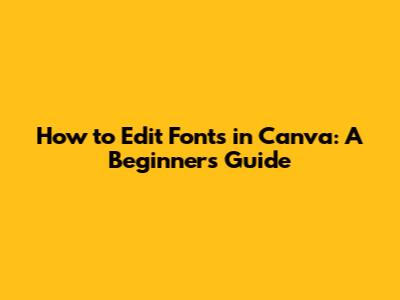
Hey guys! Ever wondered how to make your designs pop in Canva? One of the easiest ways to do that is by mastering the art of font editing. Choosing the right font and knowing how to tweak it can seriously level up your graphics. Let’s dive into how you can edit fonts in Canva like a pro!
Why Font Choice Matters
Okay, so, before we get into the nitty-gritty of editing, let’s talk about why choosing the right font is super important. Fonts aren't just about words; they convey emotions, set the tone, and reflect your brand's personality. Think about it: a playful, bubbly font might be perfect for a children’s party invite, but totally wrong for a serious business presentation, right? So, choosing wisely can make or break your design. Different fonts have different personalities. Some are serious and professional, like Times New Roman or Arial. Others are fun and whimsical, like Comic Sans or Brush Script (though maybe avoid Comic Sans unless you're going for a specific retro vibe!). Serif fonts (those with little feet) often feel more traditional and formal, while sans-serif fonts (without the feet) tend to look modern and clean. Your font choice should align with your brand's overall aesthetic. If you're a tech startup, a sleek, sans-serif font might be the way to go. If you're a luxury brand, a classic serif font could exude elegance. Also, consider your audience! A younger audience might appreciate a trendy, experimental font, while an older demographic might prefer something more classic and readable. The right font will grab their attention and make them want to engage with your content. Legibility is key. A beautiful font is useless if people can't read it! Make sure your font is clear and easy to read, especially for body text. Consider factors like font size, line height, and letter spacing to optimize readability. Contrast is your friend. Use contrasting fonts to create visual interest and hierarchy. For example, pair a bold, sans-serif font for headlines with a lighter, serif font for body text. This helps guide the reader's eye and makes your design more engaging. Consistency is crucial. Stick to a limited number of fonts (usually two or three) to maintain a cohesive look and feel. Too many fonts can make your design look cluttered and unprofessional. Test your font choices across different devices and platforms to ensure they look good everywhere. What looks great on your computer screen might not translate well to a mobile device. Pay attention to font licensing. Some fonts are free for personal use but require a license for commercial use. Make sure you're using fonts legally to avoid any potential issues. Think about the cultural context of your font choices. Certain fonts might have different connotations in different cultures. Be mindful of these nuances to avoid any unintentional offense. Ultimately, choosing the right font is about finding the perfect balance between aesthetics, readability, and brand identity. It's an iterative process, so don't be afraid to experiment and refine your choices until you find what works best for you. So, remember guys, fonts matter, so give them the attention they deserve!
Getting Started with Canva
Selecting Your Text
Alright, you've got your design open, and you want to change some text. Easy peasy! Just click on the text box you want to edit. You’ll see a blue outline appear around it, which means it's selected. Now, look up at the top toolbar. This is where all the font editing magic happens. Selecting your text in Canva is the first step towards creating visually appealing designs. Whether you're working on a social media graphic, a presentation, or a poster, the right font can make all the difference. Canva offers a wide range of text editing options, allowing you to customize your typography to match your brand and style. To select your text, simply click on the text box you want to edit. A blue outline will appear around the text, indicating that it's selected. You can also select multiple text boxes by holding down the Shift key and clicking on each one. This is useful if you want to apply the same formatting to multiple text elements at once. Once you've selected your text, the text editing toolbar will appear at the top of the Canva editor. This toolbar contains all the tools you need to customize your font, size, color, alignment, and more. If you don't see the text editing toolbar, make sure you've selected a text box. Sometimes, the toolbar can be hidden if no text is selected. To add new text to your design, click on the "Text" tab in the left-hand toolbar. You'll find a variety of pre-designed text styles, as well as options to add a heading, subheading, or body text. You can also upload your own custom fonts to Canva, allowing you to use your favorite fonts in your designs. This is a great option if you have a specific brand font that you want to use consistently. When selecting a font, consider the overall tone and style of your design. A playful font might be perfect for a children's party invitation, while a more formal font would be better suited for a business presentation. Canva offers a wide range of fonts to choose from, so take some time to explore and find the perfect one for your project. Once you've selected a font, you can adjust the size, color, and other attributes to make it stand out. Use the text editing toolbar to experiment with different settings and see what looks best. Remember to keep your text legible. A beautiful font is useless if people can't read it. Choose a font that is clear and easy to read, especially for body text. Also, consider the contrast between your text and background. Make sure your text stands out against the background so that it's easy to read. You can use different colors, shadows, or outlines to create contrast. Canva also offers a range of text effects, such as shadows, outlines, and glows. These effects can add depth and dimension to your text, making it more visually appealing. However, be careful not to overdo it. Too many effects can make your text look cluttered and difficult to read. So, that's a quick overview of how to select your text in Canva. Now that you know how to select text, let's move on to the next step: choosing a font.
Changing the Font
Now for the fun part! With your text selected, click on the font dropdown menu in the toolbar. You’ll see a massive list of fonts to choose from. Canva offers tons of free fonts, and if you have a Canva Pro account, you get access to even more. Scroll through the list or use the search bar to find the perfect font for your design. Once you click on a font, it’ll instantly apply to your selected text, so you can see how it looks right away. Changing the font is one of the most impactful ways to customize your designs in Canva. With a wide variety of fonts available, you can easily create a unique and eye-catching look for your projects. Canva offers a vast library of fonts, ranging from classic serif fonts to modern sans-serif fonts. You can also find decorative fonts, script fonts, and more. To change the font of your text, first select the text box you want to edit. Then, click on the font dropdown menu in the toolbar. A list of available fonts will appear. You can scroll through the list or use the search bar to find a specific font. As you scroll through the list, Canva will show you a preview of each font applied to your selected text. This allows you to see how the font will look in your design before you commit to it. If you have a Canva Pro account, you can also upload your own custom fonts to Canva. This allows you to use your favorite fonts in your designs, even if they're not available in the Canva library. To upload a custom font, click on the "Upload a font" button in the font dropdown menu. Then, select the font file from your computer. Canva supports TrueType (TTF), OpenType (OTF), and Web Open Font Format (WOFF) font files. When choosing a font, consider the overall tone and style of your design. A formal font might be appropriate for a business presentation, while a playful font might be better suited for a children's party invitation. You should also consider the readability of the font. Choose a font that is clear and easy to read, especially for body text. Canva allows you to adjust the size, color, and other attributes of your font. You can use these settings to fine-tune the look of your text and make it stand out. To adjust the size of your font, click on the font size dropdown menu in the toolbar. Then, select a font size from the list. You can also manually enter a font size in the text box. To change the color of your font, click on the color picker in the toolbar. Then, select a color from the color palette. You can also use the eyedropper tool to select a color from your design. Canva also offers a range of text styles, such as bold, italic, and underline. You can apply these styles to your text by clicking on the corresponding buttons in the toolbar. So, that's a quick overview of how to change the font in Canva. Now that you know how to change the font, let's move on to the next step: adjusting the font size.
Adjusting Font Size
Okay, so you’ve picked your font, but it’s either way too big or too tiny? No worries! Next to the font selection, you’ll see a number indicating the font size. You can either click the plus or minus buttons to increase or decrease the size, or manually type in a specific number. Play around until the size looks just right. Adjusting the font size is a crucial step in creating visually appealing designs in Canva. The right font size can make your text more readable, highlight important information, and create a balanced composition. Canva offers a variety of ways to adjust the font size, giving you complete control over your typography. To adjust the font size, first select the text box you want to edit. Then, click on the font size dropdown menu in the toolbar. A list of available font sizes will appear. You can select a font size from the list or manually enter a font size in the text box. As you adjust the font size, Canva will show you a preview of the text on your canvas. This allows you to see how the text will look in your design before you commit to the changes. When choosing a font size, consider the overall size of your design and the amount of text you have. A larger font size might be appropriate for headlines and titles, while a smaller font size is better suited for body text. You should also consider the readability of the text. Choose a font size that is clear and easy to read, especially for body text. As a general rule, body text should be at least 12 points in size. Headlines and titles can be larger, depending on the overall design. Canva also offers a range of text styles, such as bold, italic, and underline. These styles can help you highlight important information and create a visual hierarchy in your design. To apply a text style, select the text you want to style and click on the corresponding button in the toolbar. You can also adjust the line height and letter spacing of your text. Line height refers to the amount of vertical space between lines of text. Letter spacing refers to the amount of horizontal space between letters. Adjusting these settings can improve the readability of your text and create a more visually appealing design. To adjust the line height, click on the line height button in the toolbar. Then, drag the slider to adjust the line height. To adjust the letter spacing, click on the letter spacing button in the toolbar. Then, drag the slider to adjust the letter spacing. Canva also allows you to align your text to the left, right, or center. To align your text, select the text box you want to edit and click on the corresponding alignment button in the toolbar. In addition to adjusting the font size, you can also adjust the font color. The right font color can make your text stand out and complement the overall design. To change the font color, select the text you want to edit and click on the color picker in the toolbar. Then, select a color from the color palette. So, that's a quick overview of how to adjust the font size in Canva. Now that you know how to adjust the font size, let's move on to the next step: changing the font color.
Changing the Color
Color is key to making your text stand out. Select your text, then click on the color icon in the toolbar (it looks like a little rainbow!). You’ll see a color palette pop up. Canva gives you a bunch of default colors, but you can also use the color picker to choose any color you want. Experiment until you find a color that complements your design and makes your text pop! Changing the color of your text is a simple yet powerful way to enhance your designs in Canva. Color can evoke emotions, create visual interest, and make your text more readable. Canva offers a wide range of color options, allowing you to customize your text to match your brand and style. To change the color of your text, first select the text box you want to edit. Then, click on the color icon in the toolbar. A color palette will appear, displaying a variety of pre-selected colors. You can choose a color from the palette or use the color picker to select a custom color. The color picker allows you to choose any color you want by adjusting the hue, saturation, and brightness. You can also enter a specific hex code to choose a precise color. As you adjust the color, Canva will show you a preview of the text on your canvas. This allows you to see how the text will look in your design before you commit to the changes. When choosing a color for your text, consider the overall color scheme of your design. You should choose a color that complements the other colors in your design and creates a balanced composition. You should also consider the readability of the text. Choose a color that is easy to read against the background. As a general rule, dark text on a light background is easier to read than light text on a dark background. Canva also offers a range of color gradients. A color gradient is a smooth transition between two or more colors. You can use color gradients to create a unique and eye-catching effect for your text. To create a color gradient, select the text you want to edit and click on the gradient button in the toolbar. Then, choose two or more colors for the gradient. Canva will automatically create a smooth transition between the colors. In addition to changing the color of your text, you can also add a background color to your text box. This can help your text stand out and make it more readable. To add a background color, select the text box you want to edit and click on the background color button in the toolbar. Then, choose a color for the background. Canva also allows you to adjust the transparency of your text. This can be useful for creating a subtle or layered effect. To adjust the transparency, select the text you want to edit and click on the transparency button in the toolbar. Then, drag the slider to adjust the transparency. So, that's a quick overview of how to change the color of your text in Canva. Now that you know how to change the color, let's move on to the next step: adding text effects.
Adding Text Effects
Want to make your text really stand out? Canva has a bunch of text effects you can play with! Select your text and look for the “Effects” button in the toolbar. You’ll find options like shadow, lift, hollow, and glitch. Each effect gives your text a different vibe, so experiment and see what works best for your design. Adding text effects is a fantastic way to elevate your designs in Canva and make your text truly stand out. These effects can add depth, dimension, and personality to your typography, creating a more engaging visual experience. Canva offers a variety of text effects, ranging from subtle shadows to bold outlines. To add a text effect, first select the text box you want to edit. Then, click on the "Effects" button in the toolbar. A panel will appear, displaying a variety of text effects. Here are some of the most popular text effects in Canva: Shadow: Adds a subtle shadow behind your text, creating a sense of depth. You can adjust the offset, direction, and blur of the shadow to customize the effect. Outline: Adds an outline around your text, making it stand out from the background. You can adjust the thickness and color of the outline. Lift: Creates the illusion that your text is lifted off the page, adding a three-dimensional effect. Hollow: Creates a hollow or transparent version of your text, revealing the background behind it. Glitch: Adds a glitchy or distorted effect to your text, creating a modern and edgy look. Neon: Adds a neon glow to your text, making it appear bright and vibrant. Background: Adds a solid background behind your text, making it stand out from the background. You can adjust the color and transparency of the background. As you apply text effects, Canva will show you a preview of the text on your canvas. This allows you to see how the text will look in your design before you commit to the changes. When choosing a text effect, consider the overall style and tone of your design. A subtle shadow might be appropriate for a professional presentation, while a bold outline might be better suited for a social media graphic. You should also consider the readability of the text. Choose a text effect that doesn't make the text difficult to read. In addition to the pre-designed text effects, Canva also allows you to create your own custom text effects. You can do this by combining different effects and adjusting their settings. For example, you could add a shadow and an outline to your text to create a more dramatic effect. You can also use the transparency tool to create a layered effect. So, that's a quick overview of how to add text effects in Canva. Now that you know how to add text effects, let's move on to the next step: adjusting the text alignment.
Adjusting Text Alignment
How your text is aligned can change the whole look of your design. Select your text and look for the alignment options in the toolbar. You can choose to align your text to the left, right, center, or justify it. Experiment with different alignments to see what looks best with your design. Adjusting the text alignment is an essential aspect of creating well-organized and visually appealing designs in Canva. Proper alignment ensures that your text is easy to read and contributes to the overall balance of your composition. Canva provides several alignment options, allowing you to arrange your text in a way that complements your design. To adjust the text alignment, first select the text box you want to edit. Then, look for the alignment buttons in the toolbar. You'll typically find four alignment options: Left Alignment: Aligns the text to the left edge of the text box. This is the most common alignment option and is generally used for body text. Center Alignment: Centers the text within the text box. This option is often used for titles and headings. Right Alignment: Aligns the text to the right edge of the text box. This option is less common than left or center alignment but can be useful for specific design purposes. Justify Alignment: Aligns the text to both the left and right edges of the text box, creating a clean and uniform look. This option is often used for longer paragraphs of text. As you click on the different alignment buttons, Canva will show you a preview of the text on your canvas. This allows you to see how the text will look in your design before you commit to the changes. When choosing a text alignment, consider the overall layout of your design and the purpose of the text. Left alignment is generally the best option for body text, as it's the easiest to read. Center alignment can be effective for titles and headings, as it draws attention to the text. Right alignment can be used to create a visual contrast or to align text with other elements in your design. Justify alignment can be used to create a clean and uniform look for longer paragraphs of text. In addition to the basic alignment options, Canva also allows you to adjust the indentation of your text. Indentation refers to the amount of space between the text and the edge of the text box. You can use indentation to create a visual hierarchy or to separate paragraphs of text. To adjust the indentation, select the text box you want to edit and use the indentation controls in the toolbar. Canva also allows you to adjust the line spacing of your text. Line spacing refers to the amount of space between lines of text. Adjusting the line spacing can improve the readability of your text and create a more visually appealing design. To adjust the line spacing, select the text box you want to edit and use the line spacing controls in the toolbar. So, that's a quick overview of how to adjust the text alignment in Canva. Now that you know how to adjust the text alignment, let's move on to the next step: saving and exporting your design.
Saving and Exporting Your Design
Alright, you’ve tweaked your fonts, colors, and effects, and your design looks awesome! Now it’s time to save it. Canva automatically saves your work as you go, but it’s always a good idea to double-check. To download your design, click on the “Share” button in the top right corner, then select “Download.” You can choose from different file types like PNG, JPG, or PDF, depending on how you plan to use your design. Saving and exporting your design is the final step in the creative process in Canva. It's crucial to save your work to ensure that you don't lose any progress. Exporting your design allows you to share it with the world or use it for various purposes. Canva offers several options for saving and exporting your designs, giving you flexibility and control over your final product. Canva automatically saves your designs as you work, so you don't have to worry about losing your progress. However, it's always a good idea to manually save your design from time to time, especially after making significant changes. To manually save your design, click on the "File" menu in the top left corner and select "Save." Canva will save your design to your account, allowing you to access it from any device. Once you're satisfied with your design, you can export it in various formats. To export your design, click on the "Share" button in the top right corner and select "Download." A panel will appear, allowing you to choose the file format, size, and quality of your exported design. Here are some of the most common file formats in Canva: PNG: This format is ideal for designs with transparent backgrounds, such as logos or icons. It also supports high-quality images. JPG: This format is suitable for photographs and designs with a lot of colors. It's a smaller file size than PNG, making it easier to share online. PDF: This format is perfect for documents that you want to print or share electronically. It preserves the formatting and fonts of your design. SVG: This format is ideal for vector graphics, such as logos or illustrations. It's scalable without losing quality. In addition to choosing the file format, you can also adjust the size and quality of your exported design. For example, you can increase the size of your design to make it suitable for printing or decrease the size to make it easier to share online. You can also adjust the quality of your design to reduce the file size. Canva also allows you to export specific pages from your design. This can be useful if you only want to share a few pages from a multi-page document. To export specific pages, select the "Pages" option in the download panel and choose the pages you want to export. Once you've chosen the file format, size, quality, and pages, click on the "Download" button. Canva will export your design and save it to your computer. You can then share your design with the world or use it for various purposes. So, that's a quick overview of how to save and export your design in Canva. Now that you know how to save and export your design, you can start creating amazing designs with confidence!